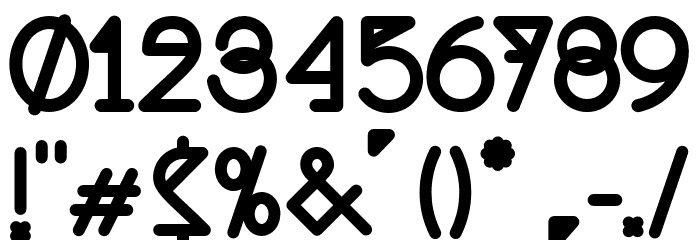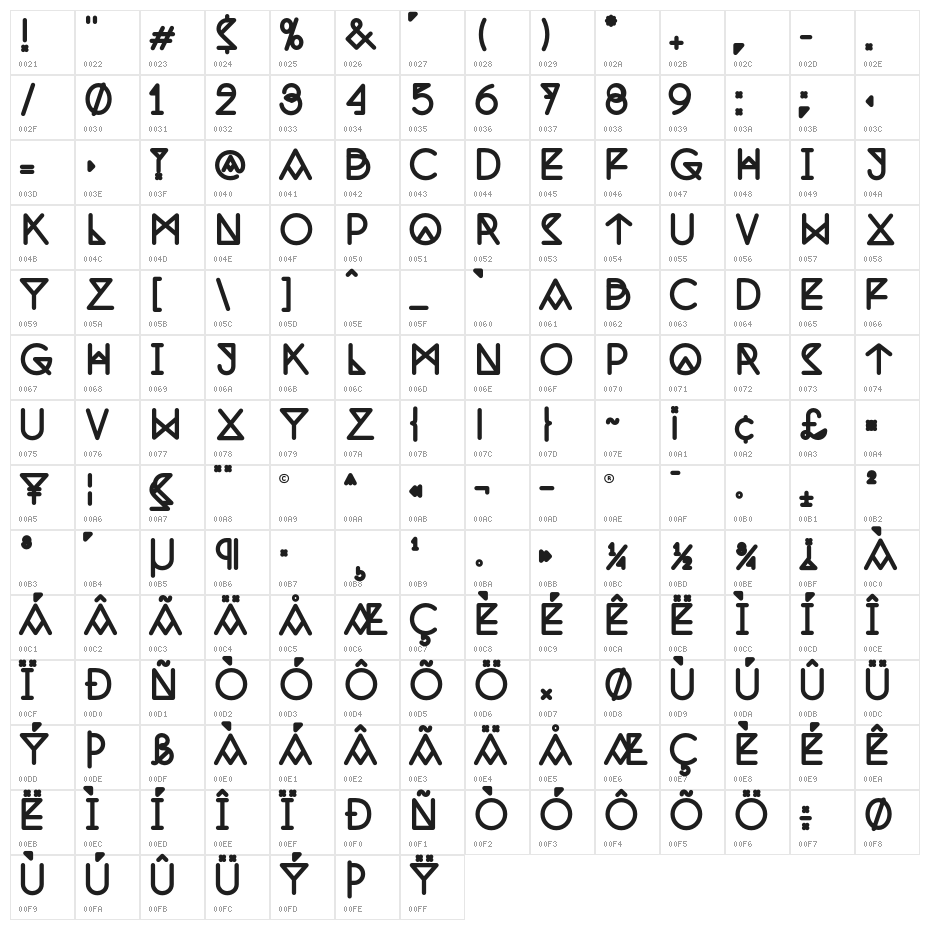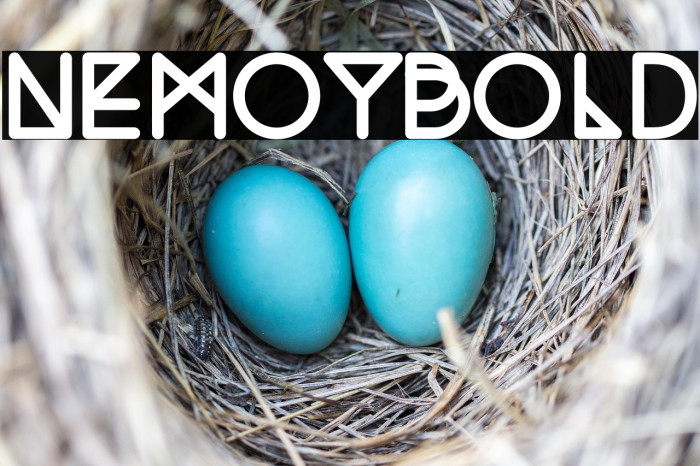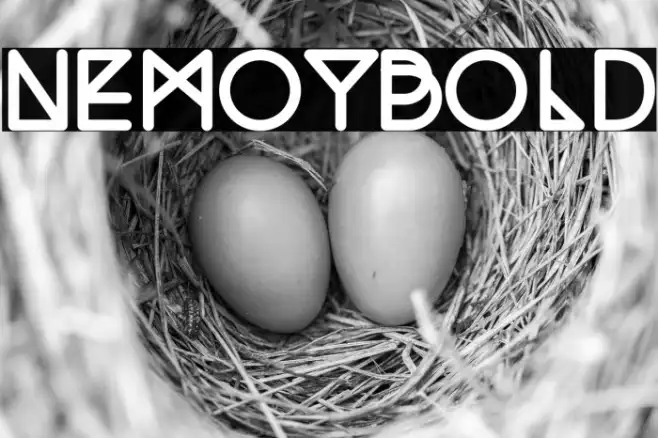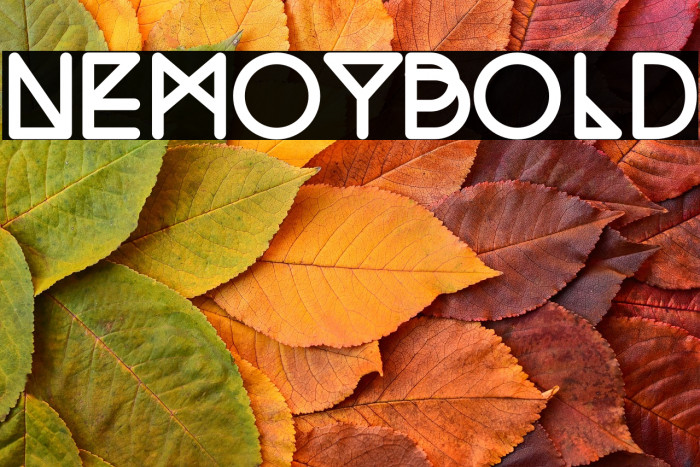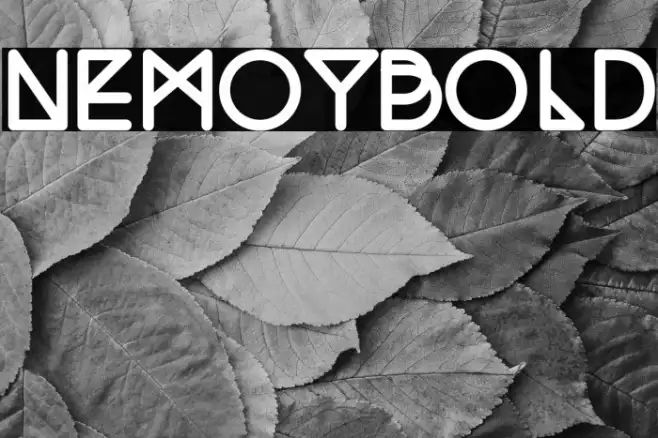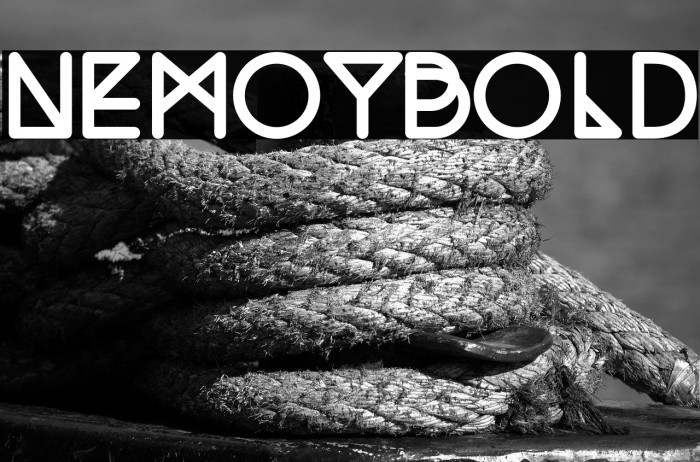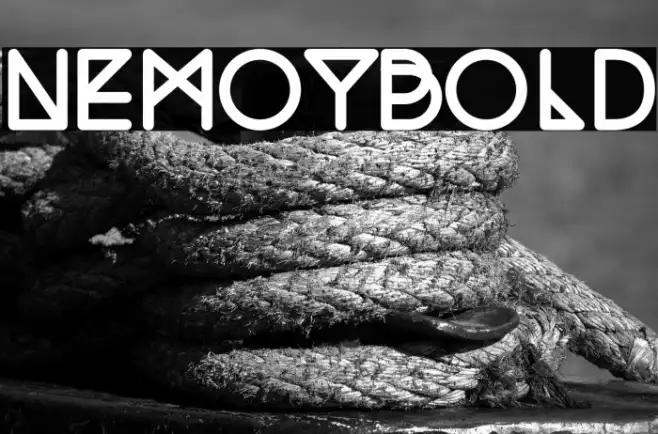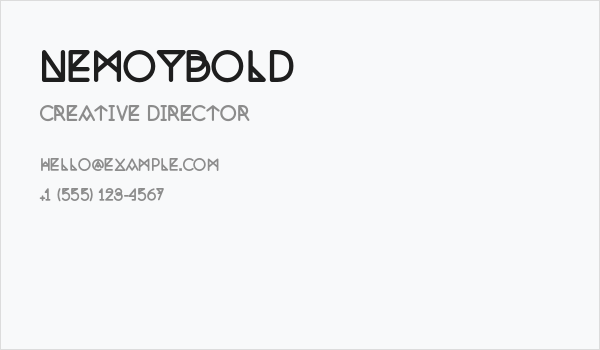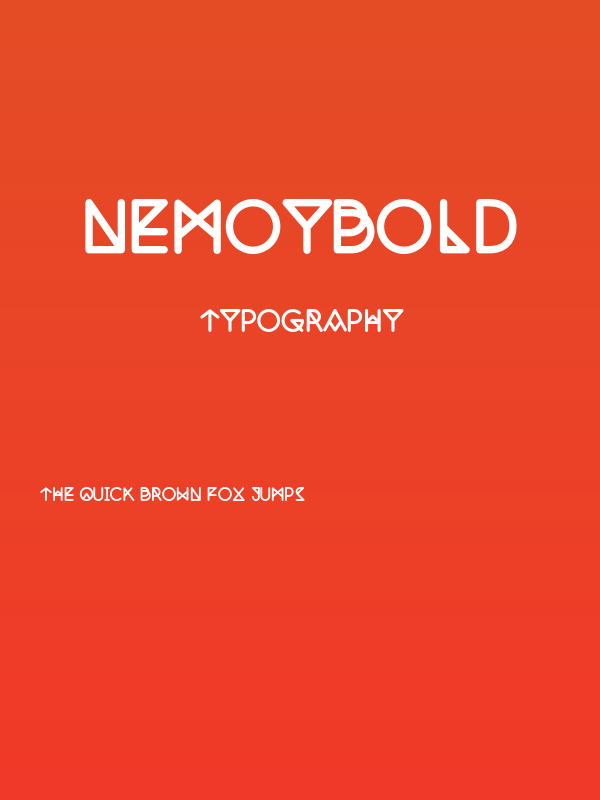
NemoyBold Font
NemoyBold Description
This font features a bold, geometric design with a futuristic flair. The characters are constructed with thick, consistent strokes, giving them a strong and assertive presence. The use of angular shapes and unique cutouts within the letters adds a modern and innovative touch. The numerals and special characters maintain the same boldness and geometric style, ensuring a cohesive look across all elements. This font's distinct style makes it stand out, with its clean lines and symmetrical forms contributing to its overall modern aesthetic.
| Proposed Projects | Ideal for sci-fi themed projects, tech branding, video game titles, and modern posters. |